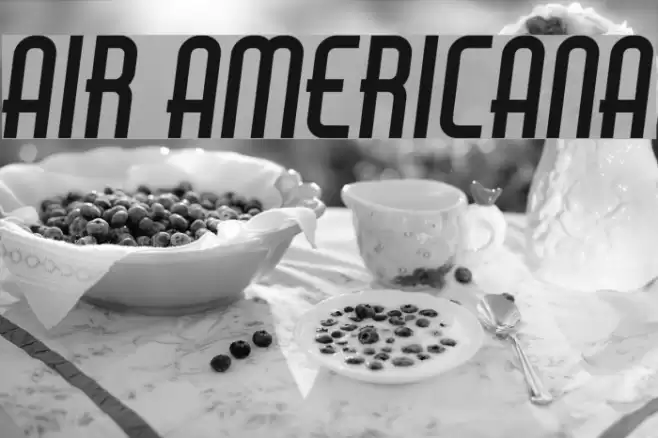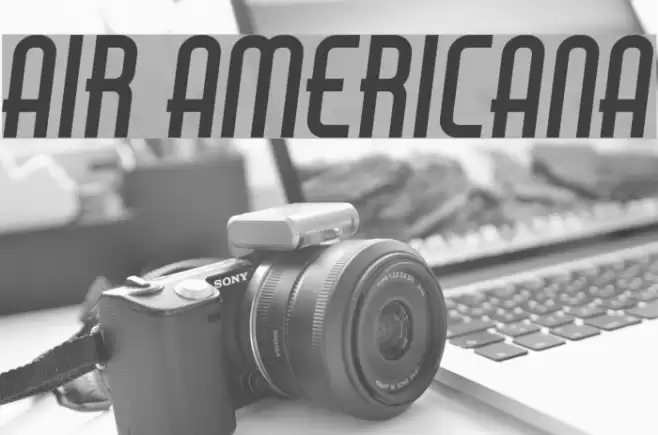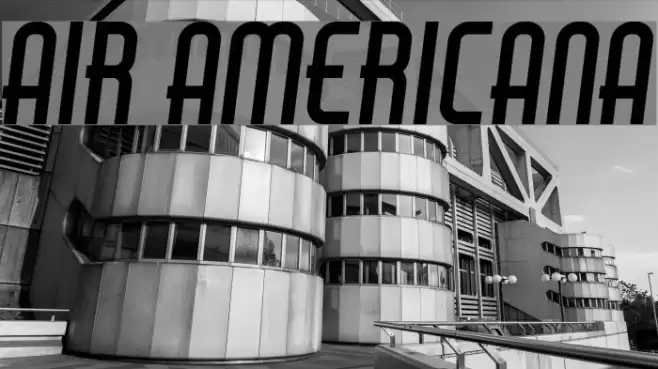
Air Americana Font
Air Americana Description
This font features a sleek, modern design with a distinct geometric influence. The characters are slightly condensed, giving it a streamlined appearance. The strokes are consistent in width, providing a uniform look across all characters. The uppercase and lowercase letters maintain a cohesive style, with a slight slant that adds a dynamic feel. The numerals are clear and legible, matching the overall aesthetic. Special characters are well-integrated, ensuring versatility in various design applications.
A modern, geometric font with a slight slant and consistent stroke width from Retro fonts.
• Proposed Projects: Ideal for branding, advertising, and editorial design projects that require a contemporary and professional look.